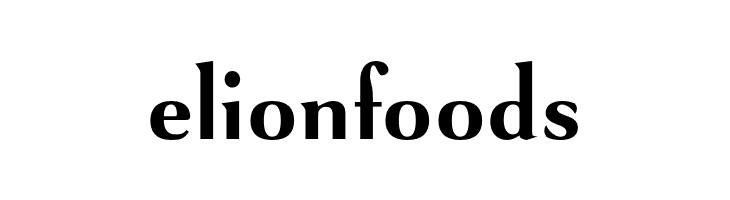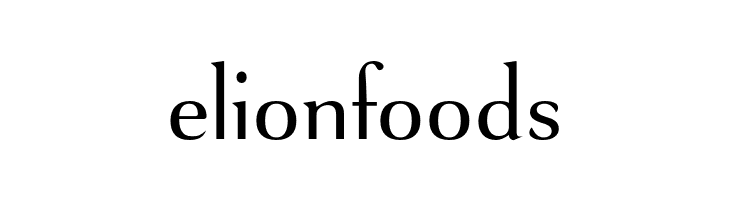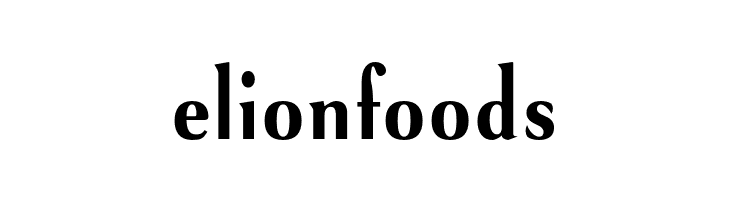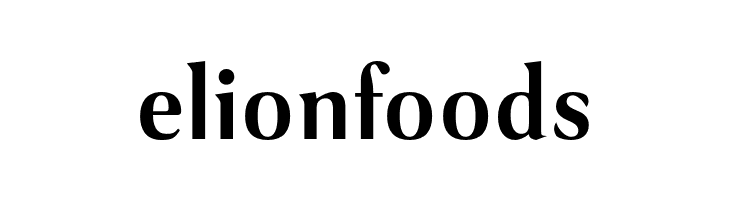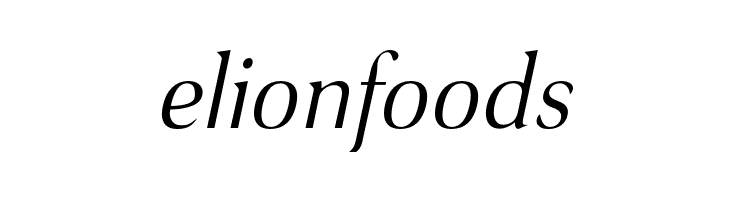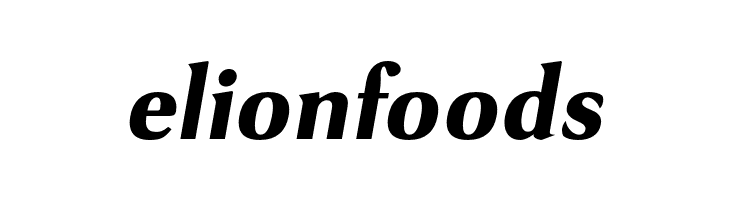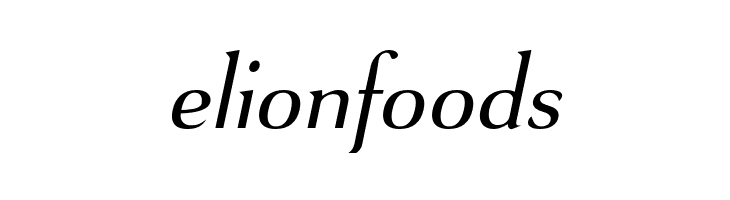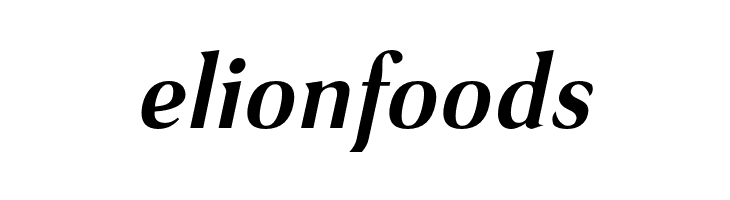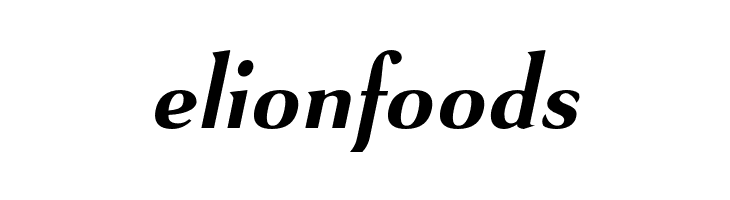
A bold, oblique font with a dynamic and impactful style.
A bold, modern serif font with elegant proportions and excellent readability.
A bold italic font with modern elegance and medium contrast, ideal for dynamic designs.
A refined italic font with smooth curves and moderate contrast.
A refined serif font with elegant lines and balanced proportions.
A bold, serif font with a classic and authoritative style.
A bold, italicized serif font with a dynamic and elegant appearance.
An elegant italic serif font with smooth curves and classic style.
A refined serif typeface with elegant curves and balanced proportions.
A bold, condensed serif font with strong, thick strokes and a modern twist.